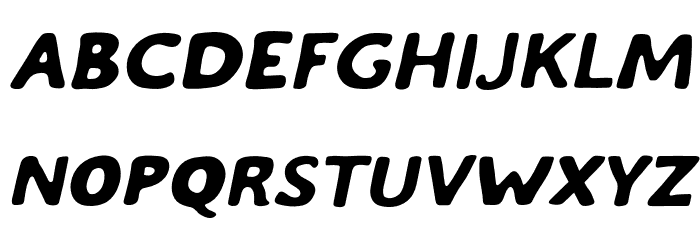
ChaosAndMadnessFree-Italic Font
This font features a bold and dynamic style with a playful and energetic appearance. The characters are slightly slanted, giving an italicized effect that adds movement and flair. The strokes are thick and rounded, contributing to a friendly and approachable look. The uppercase letters are consistent in height, while the lowercase letters maintain a uniform baseline, enhancing readability. The absence of serifs and the smooth curves make it suitable for modern and casual designs. The font's boldness ensures it stands out, making it ideal for attention-grabbing headlines or titles.
A bold, italicized font with rounded, dynamic strokes and a playful style.
- Font: ChaosAndMadnessFree-Italic
- Proposed Projects: Ideal for branding, advertising, posters, and any project requiring a bold, modern touch.